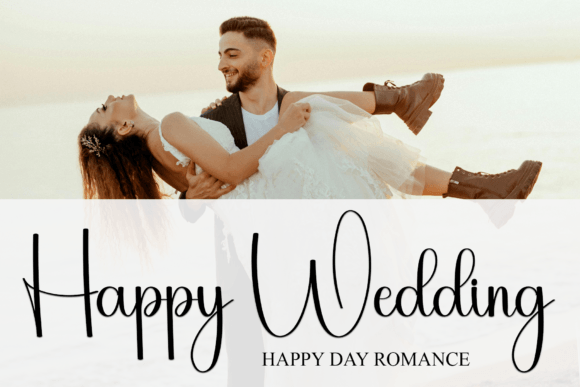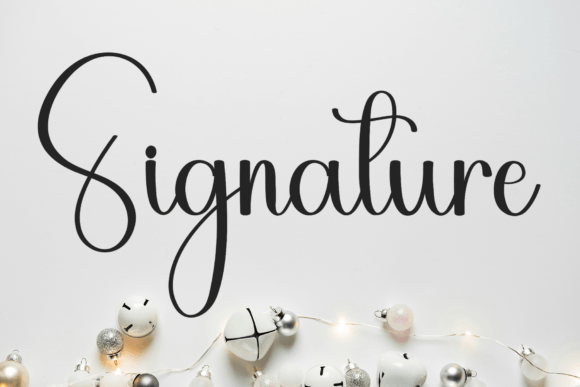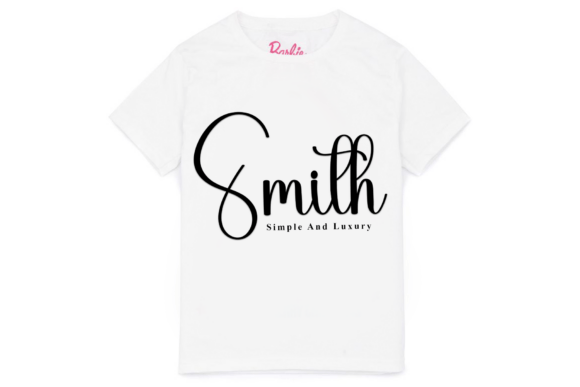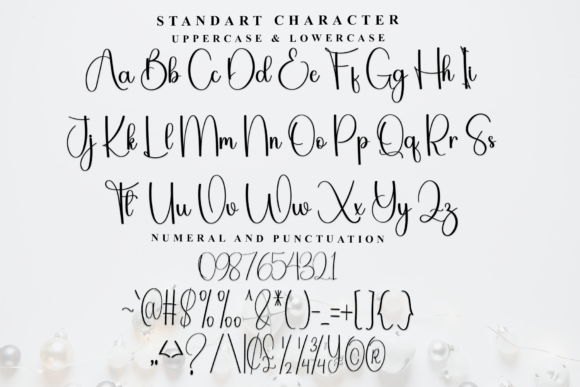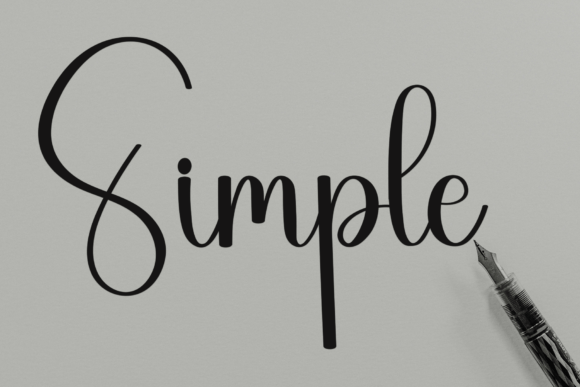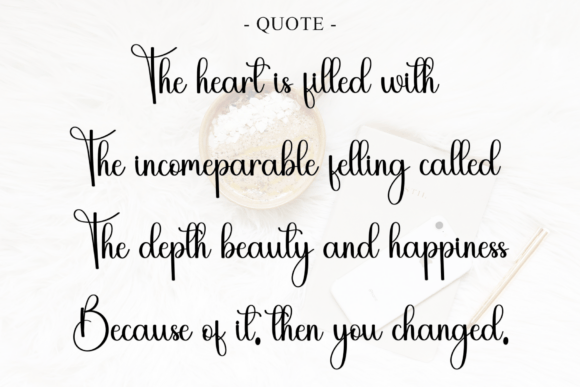
Bernard Handmade Font: Elevate Your Designs with a Timeless Touch
In the world of typography, a well-crafted font can make all the difference in creating visually stunning designs. For designers and crafters looking to add a personal touch to their work, the Bernard Handmade Font is an excellent choice. This lovely and timeless handwritten font is perfect for creating eye-catching logos, branding, and quotes that stand out from the crowd.
The Unique Charm of Bernard Handmade Font
What sets Bernard Handmade Font apart is its distinctive and beautiful touch. Every letter in this font has been carefully crafted to bring a sense of warmth and personality to your designs. Unlike uniform, machine-generated fonts, the handmade quality of Bernard gives your text a unique character that captures the essence of handwriting. This makes it an ideal choice for projects where you want to convey a sense of authenticity and craftsmanship.
Bernard Handmade Font is incredibly versatile, making it suitable for a wide range of design projects. Here are some ways you can use this font to elevate your work:
- Logos and Branding: Create memorable logos and brand identities that reflect the personal and handmade touch of your products or services.
- Quotes and Posters: Add a touch of elegance and personality to inspirational quotes, posters, and flyers.
- Packaging: Stand out on store shelves with unique and eye-catching packaging designs.
- Digital Content: Enhance your digital content, such as blog posts, social media graphics, and email newsletters, with beautiful and engaging typography.
Why Choose Bernard Handmade Font?
With so many fonts available, why choose Bernard Handmade Font for your projects? Here are a few compelling reasons:
- Timeless Appeal: The handmade quality of this font gives it a timeless appeal that won’t go out of style.
- Versatility: From logos and branding to digital content and packaging, this font can be used in a variety of contexts.
- Unique Designs: Stand out from the competition with unique and eye-catching designs that reflect the personal touch of the font.
Bernard Handmade Font is a versatile and beautiful font that can elevate your designs to the next level. Its unique and timeless quality makes it perfect for designers and crafters looking to add a personal touch to their work. With PUA encoding for easy access to glyphs and ligatures, this font is a practical choice for a wide range of projects. Whether you’re creating logos, branding, quotes, or digital content, Bernard Handmade Font is an excellent choice for anyone looking to make a lasting impression.